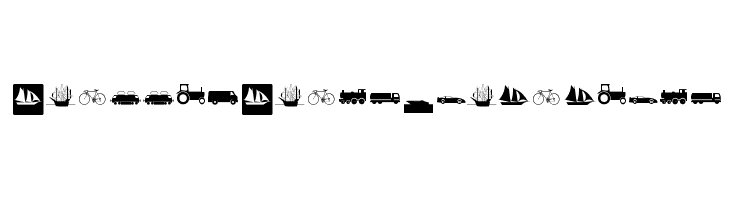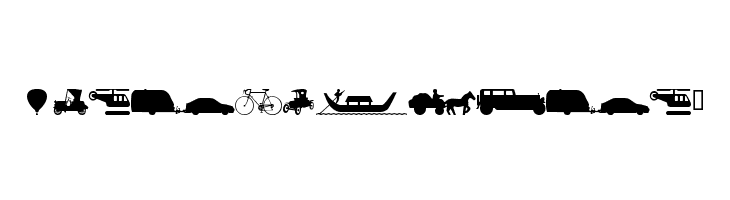
A set of bold, easily recognizable transportation and directional symbols.
A bold pictogram font of various transportation and vehicle icons.
A pictogram set featuring various vehicles and modes of transportation.
A transportation-themed icon font with bold pictograms in square frames.